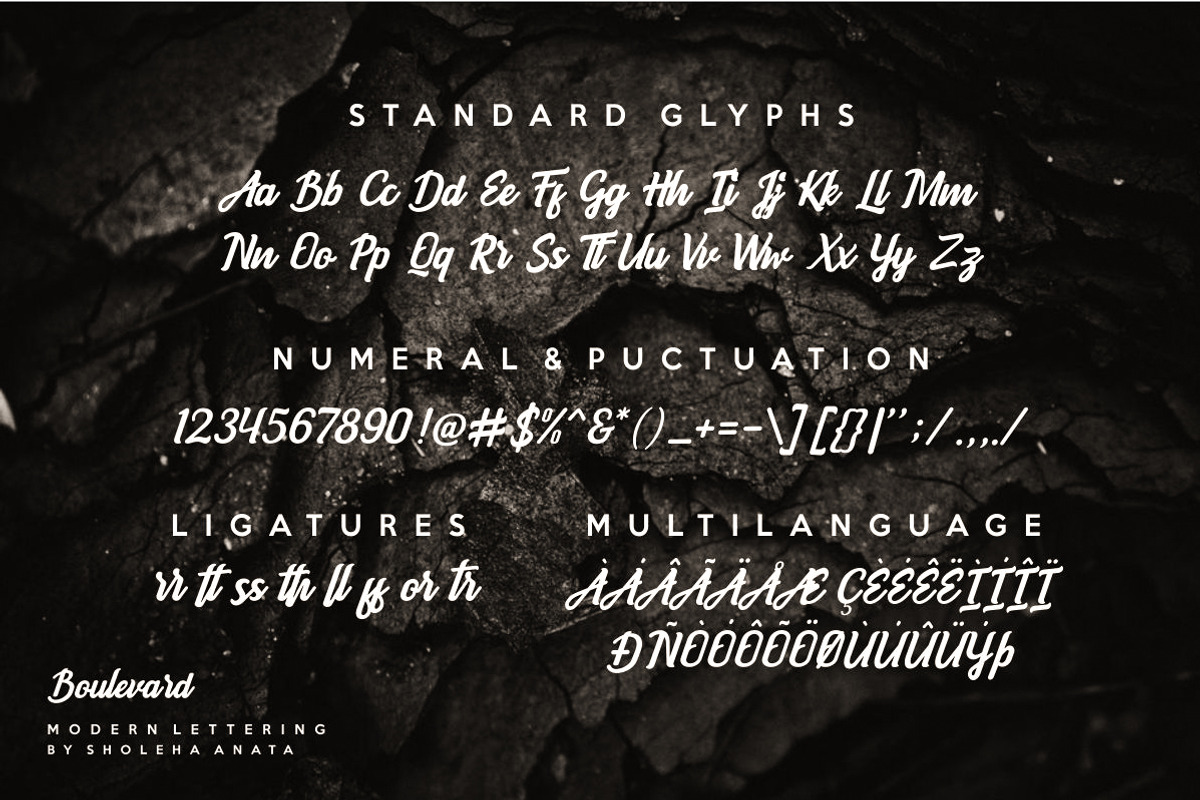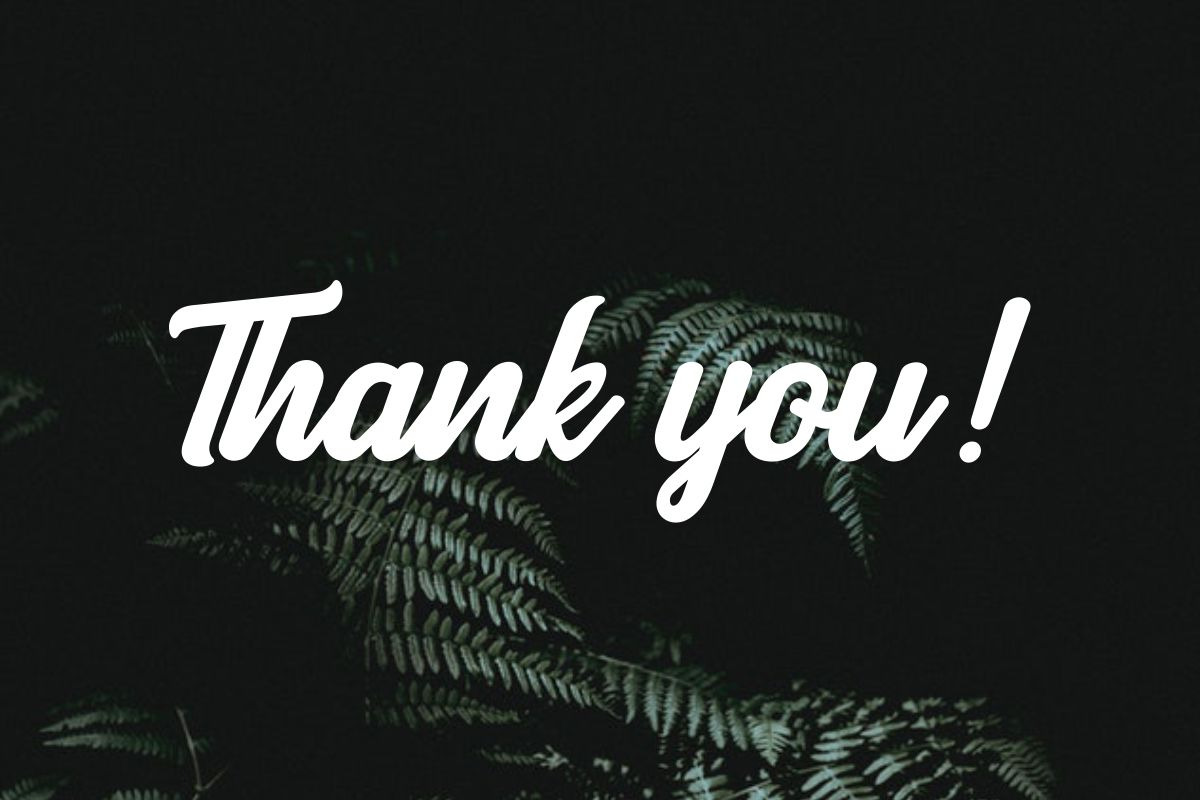
Introducing Boulevard a new fresh & modern script with a handlettering style! This font is so smooth and clean, would be perfect for printed design. Boulevard can be opened and used in any software that can read standard fonts - even MS Word, no special software is required.
Boulevard is perfect for branding projects, logo, wedding designs, social media posts, advertisements, product packaging, product designs, label, photography, quotes, watermark, invitation, stationery and any projects that need handwriting taste.